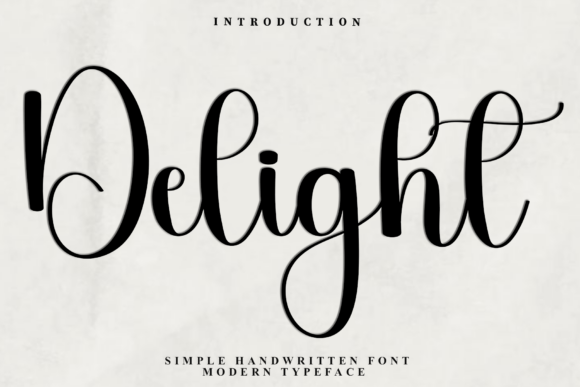
The Power of Delight
You know that moment when a spark of creativity strikes and your design ideas start flowing? The feeling of excitement and anticipation as you envision your project coming to life? That’s exactly what happened to me when I first laid eyes on Delight Font.
This elegant, handwritten font is more than just a pretty face – it’s a tool that can elevate your designs to new heights. With its delicate, flowing characters and beautiful balance, Delight Font is the perfect addition to any creative project. Whether you’re working on a wedding invitation, a children’s book, or a social media campaign, Delight Font is sure to bring a touch of whimsy and charm to your work.
Delight Font Key Features
- Font Family: Delight Font offers a wide range of font styles, including Delight Regular, Delight Italic, Delight Bold, and Delight Bold Italic.
- Unique Characteristics: Delight Font features a unique blend of modern and vintage elements, with a focus on elegant lines and subtle flair, making it suitable for a wide range of design projects.
Delight Font Review
Overall, I’d say the Delight Font is a charming addition to any design project. ✨ Its playful, cursive script is perfect for titles and headings, adding a touch of whimsy to any layout. The font’s gentle curves and soft lines make it feel approachable and friendly, making it a great choice for designs targeting a younger audience.
While Delight Font is a solid choice, there are a few limitations to consider: ⚠️
- May not be suitable for formal designs: Due to its playful, cursive script, Delight Font may not be the best choice for formal or professional designs, such as business reports or academic papers.
Overall, I’d recommend Delight Font for designers looking to add a touch of personality to their projects. While it may not be the best choice for every design scenario, it’s a solid addition to any designer’s toolkit.
Getting the Most Out of Delight Font
For best results, use Delight Font in combination with bold or italic text to create visual interest.
Experiment with different font sizes and colors to highlight important information.
Use Delight Font in headings and subheadings to create a clear hierarchy of information.
Delight Font is ideal for:
Creating visually appealing headings and titles.
Designing marketing materials, such as brochures and flyers.
Developing engaging social media graphics and posts.
Alternatives to Delight Font for Designers
Pacifico is a beautiful, elegant script font perfect for creating a sophisticated and luxurious feel. It’s ideal for use in wedding invitations, branding, and advertising materials where a touch of class is required. Pacifico is similar to Delight Font in its cursive nature but has a more refined and polished look, making it suitable for high-end designs.
Great Vibes is a modern, cursive font that exudes a sense of fun and playfulness. It’s perfect for use in designs that require a lighthearted and approachable tone, such as social media graphics, posters, and children’s products. Compared to Delight Font, Great Vibes is more casual and informal, making it suitable for a wider range of applications.